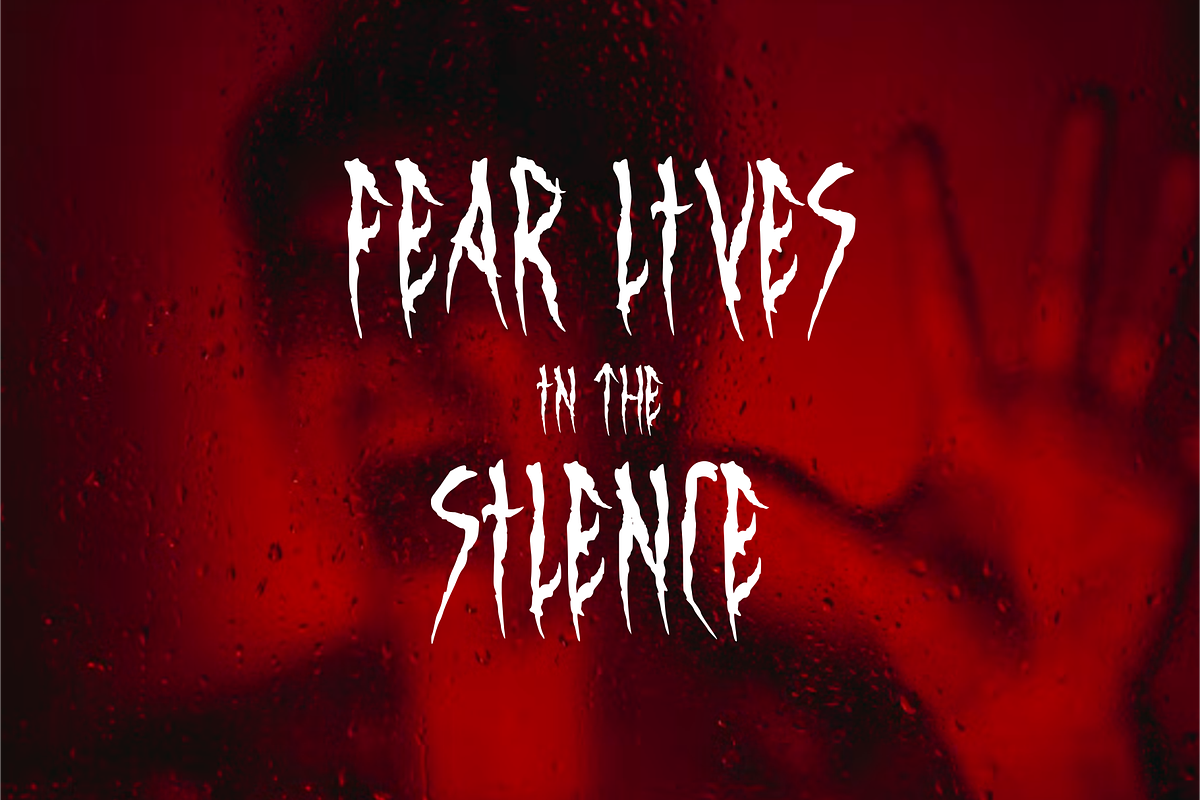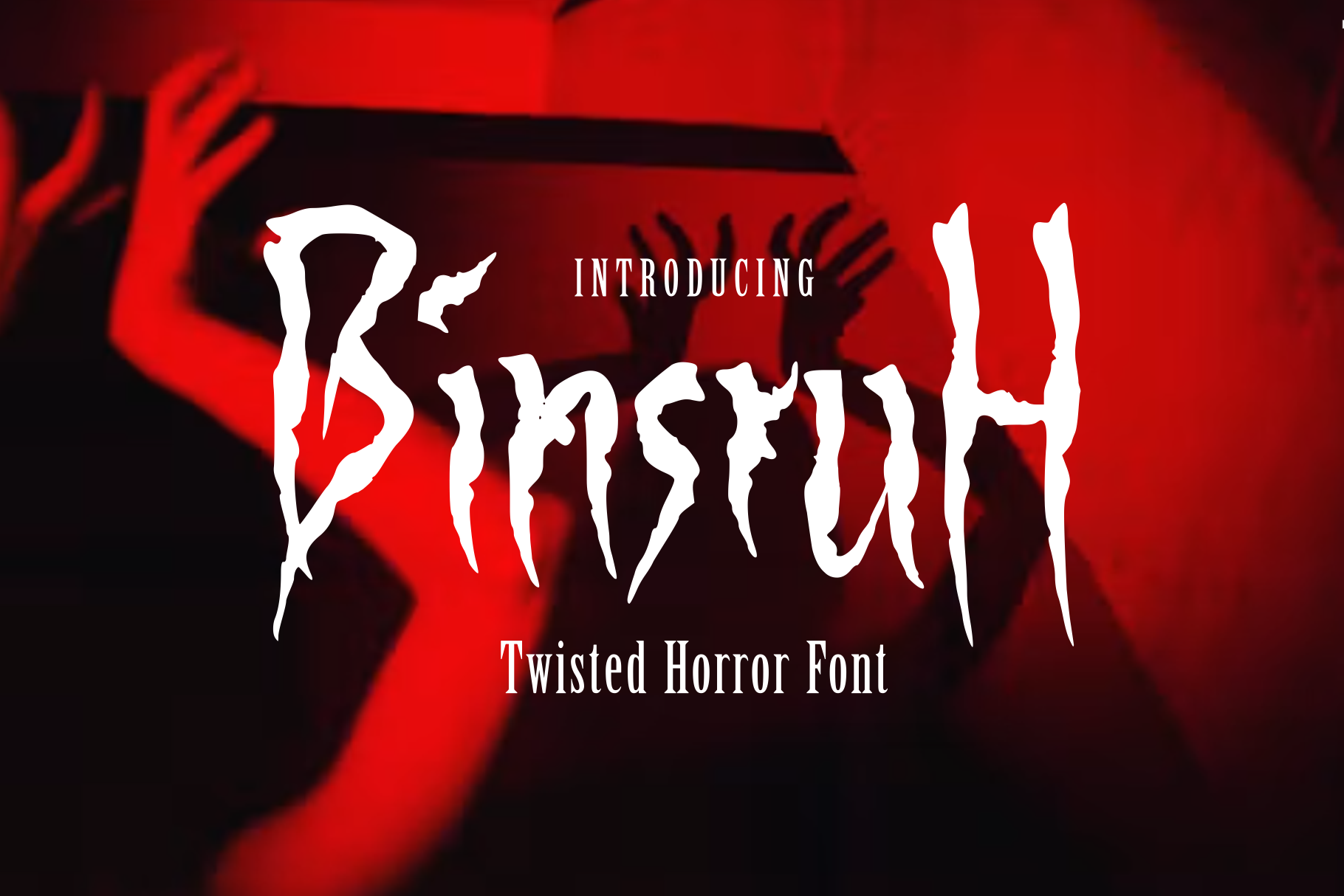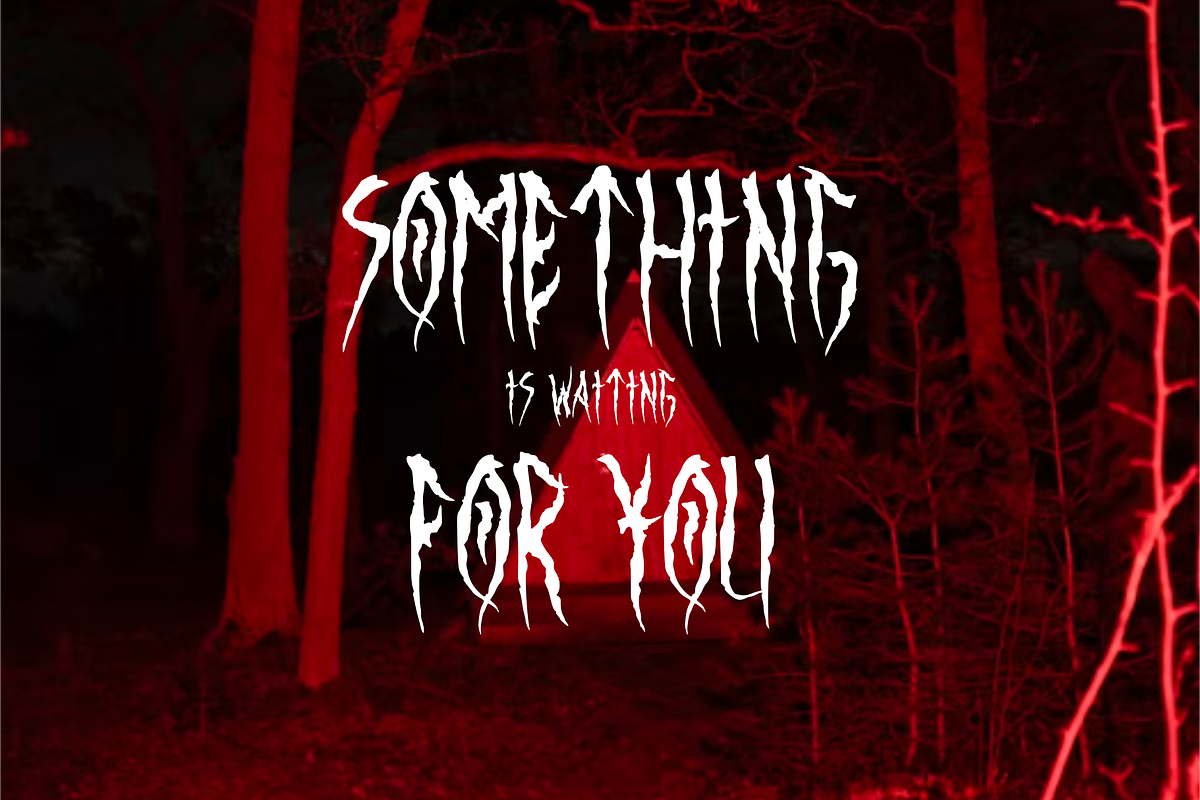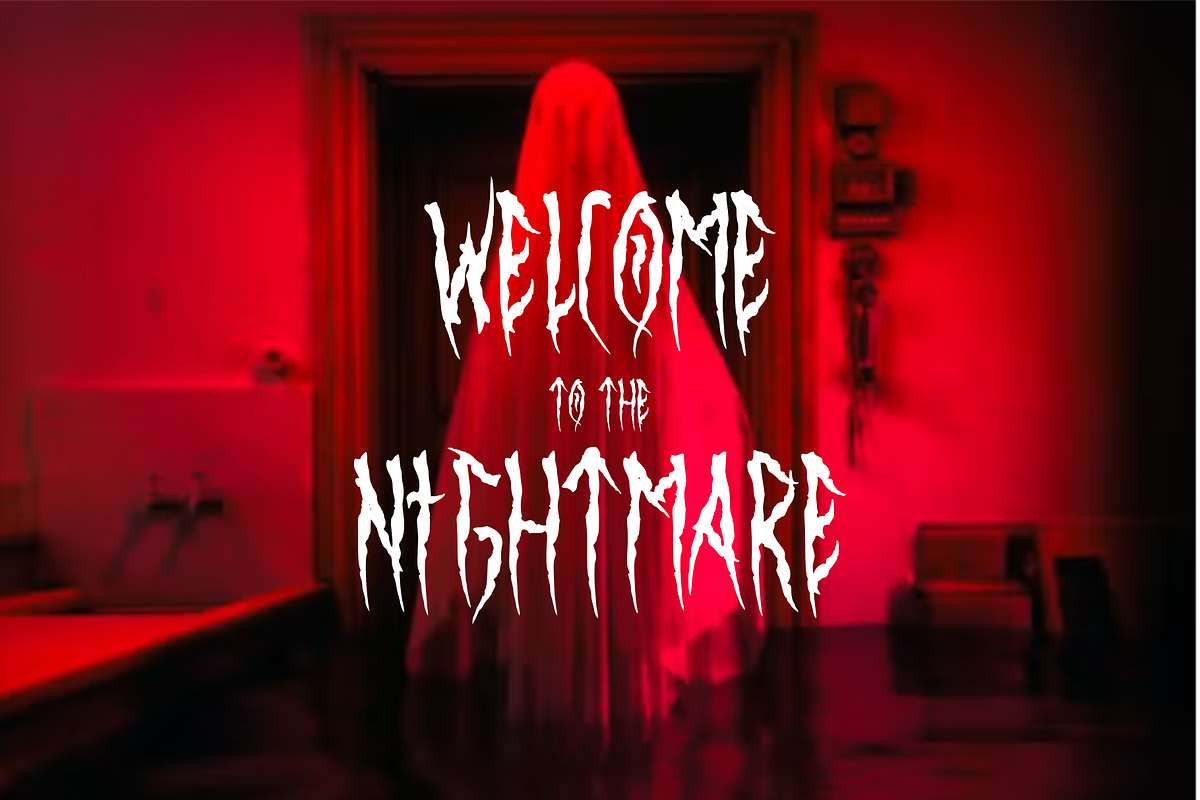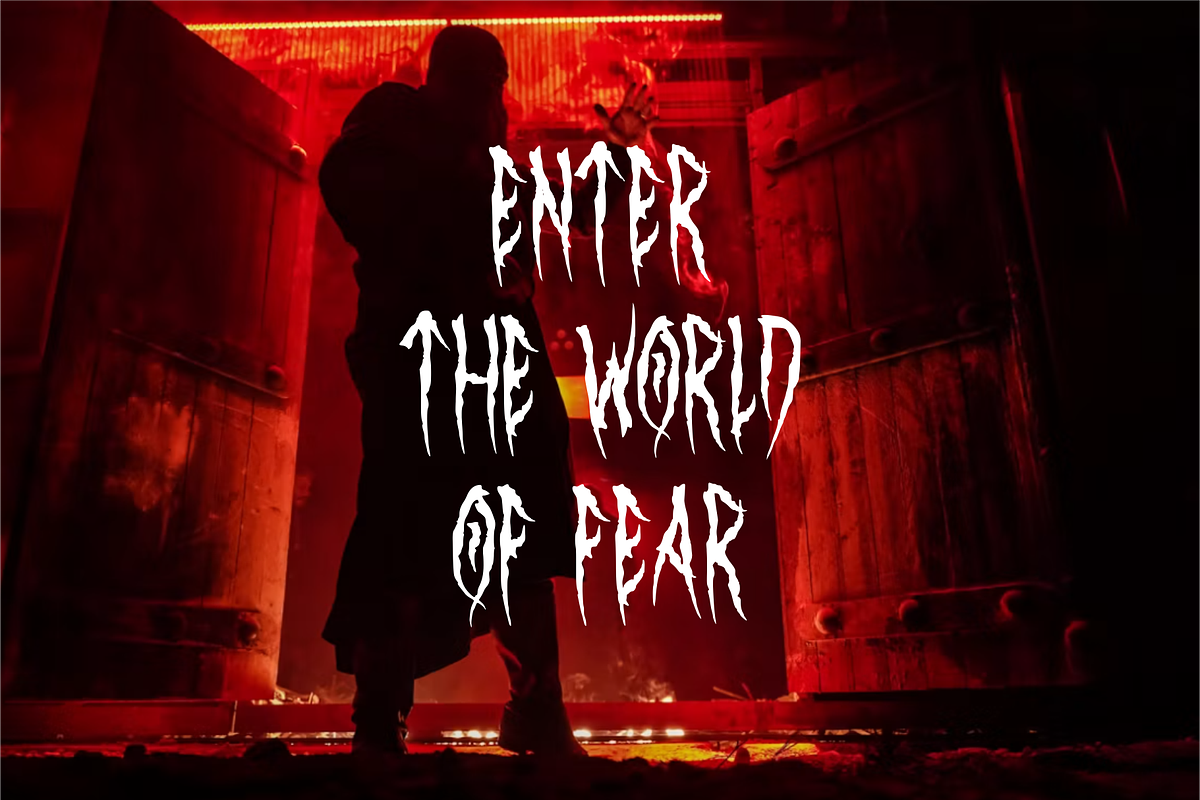
Binsruh – Twisted Horror Font
Binsruh is a twisted horror display font designed to bring an unsettling, chaotic, and sinister character to your typography. Featuring irregular strokes, distorted letterforms, sharp organic details, and a hand-drawn feel, Binsruh creates an eerie visual atmosphere that feels raw, mysterious, and slightly disturbing.
Perfect for horror posters, thriller titles, dark album covers, movie branding, Halloween graphics, haunted house designs, book covers, gaming artwork, merchandise, logos, and experimental typography.
Its unpredictable shapes and creepy personality make Binsruh especially effective for projects that need a strong horror aesthetic with a handcrafted, unconventional appearance.
Binsruh is ideal for: • Horror & thriller posters • Halloween designs • Dark branding & logos • Movie & game titles • Album & music artwork • Book & novel covers • Haunted house promotions • T-shirts & merchandise • Social media graphics • Experimental typography • Creepy editorial designs • Underground & alternative artwork
Binsruh — Twisted Horror Font is made for designs that need to feel strange, distorted, sinister, raw, and unforgettable.